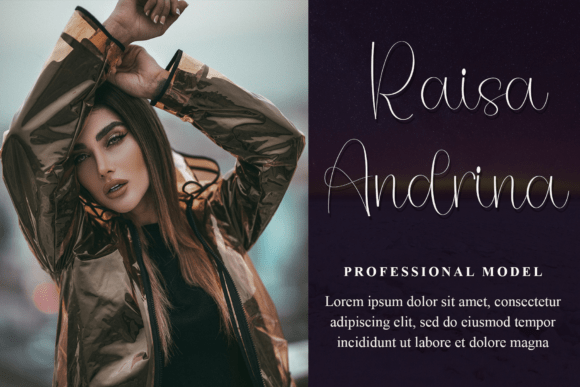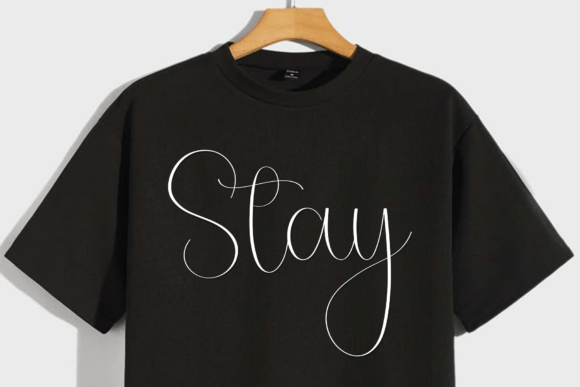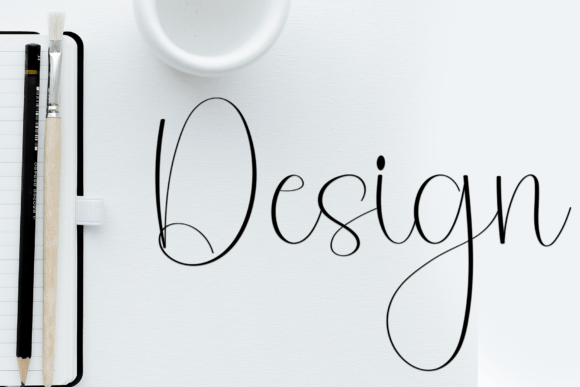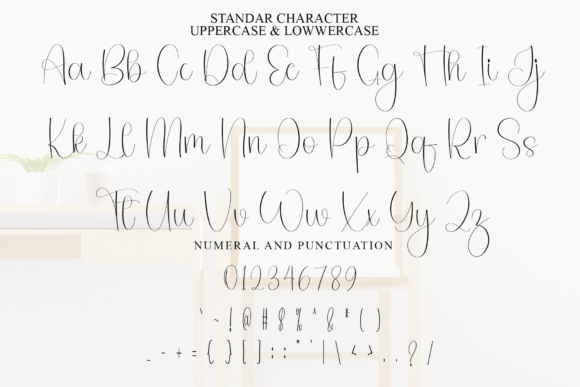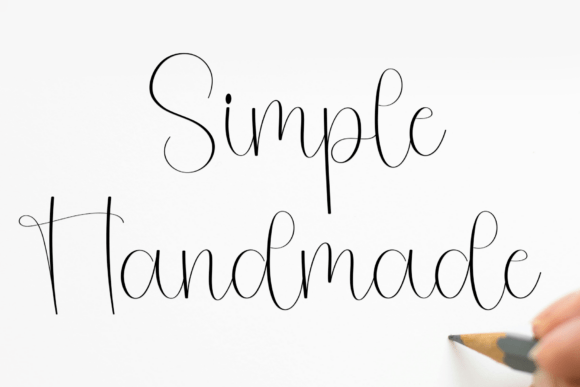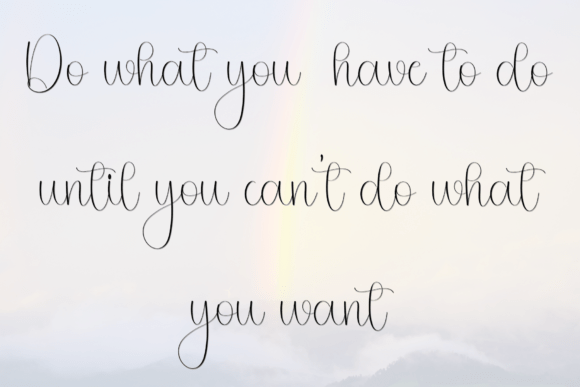
Introduction to Background Luxury Font
As a designer, there’s nothing quite like the thrill of bringing a creative project to life. It’s that moment when you’re brainstorming ideas, experimenting with colors, and testing out fonts that gets the imagination racing. For many of us, it’s the perfect excuse to get into the holiday spirit and deck the halls with festive typography. And that’s exactly where the Background Luxury Font comes in – a festive and merry typeface that captures the essence of the holiday season.
This enchanting font is a design resource that’s sure to add a touch of magic to your designs. With its decorative elements and whimsical flair, it’s perfect for greeting cards, gift tags, and holiday-themed projects. And the best part? The Background Luxury Font is available for free download, making it an accessible and high-quality addition to your design arsenal.
Key Features of Background Luxury Font
- Includes 6 stylish and elegant font styles to enhance your design.
- Perfect for use in corporate branding, luxury packaging, and high-end advertising designs.
Honest Review: Background Luxury Font
I recently stumbled upon the Background Luxury Font and was excited to give it a try in my latest creative project. One of the things I loved about this font is its sleek, modern design, which makes it perfect for any high-end branding or design work.
- ✨ High-quality design: The font is incredibly detailed and well-designed, making it a great addition to any design project.
- ✨ Transparent background: This allows for easy use in design software and ensures that the font blends seamlessly with any background.
- ⚠️ Limited font styles: The font only comes in a few different styles, which may limit its versatility in certain design projects.
Overall, I was impressed with the Background Luxury Font and would definitely recommend it to designers working on high-end creative projects. With a little creativity, this font can add a touch of luxury to any design.
To get the most out of Background Luxury Font, use it sparingly and in combination with other design elements. Common use cases include luxury branding, high-end marketing materials, and creative projects that require a touch of sophistication. Experiment with different font sizes and colors to achieve the desired level of luxury and elegance.